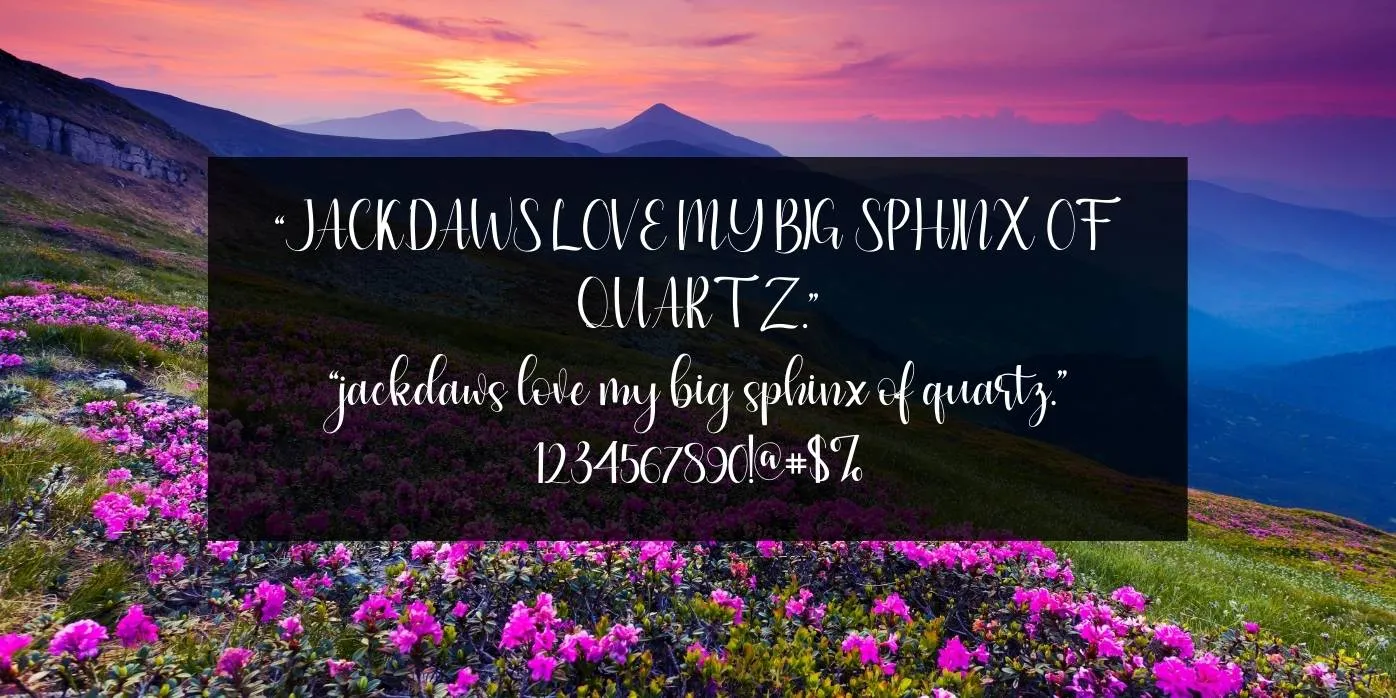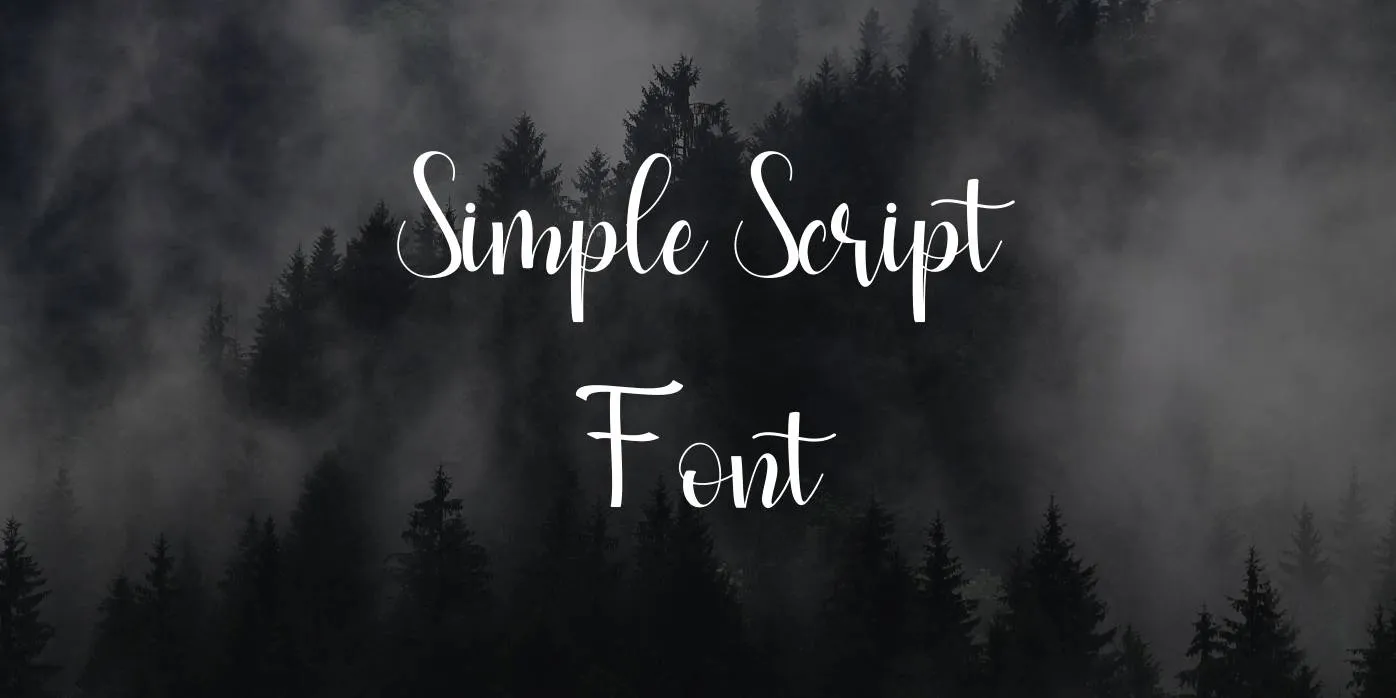
Simple Script Font
Here, we are going to introduce a stylish typeface known as Simple Script Font. This family was developed by Zulkhairi lettering. It belongs to the script family. This typeface carries a unique handwritten touch.
You can see this modern touch in every character of this font. This family contains three members regular, bold, and italic. All of them come in TTF format. Simple Script Font supports Latin languages.
This has different special characteristics like Stylistic Sets, Contextual Alternates, and Standard Ligatures. You can create a natural look with its help. This stunning font was released in August 2019. At the time of writing this post, there are only 492 glyphs present in it.
This tremendous font offers you three different styles. Its generator tool is perfect for all graphic design projects.